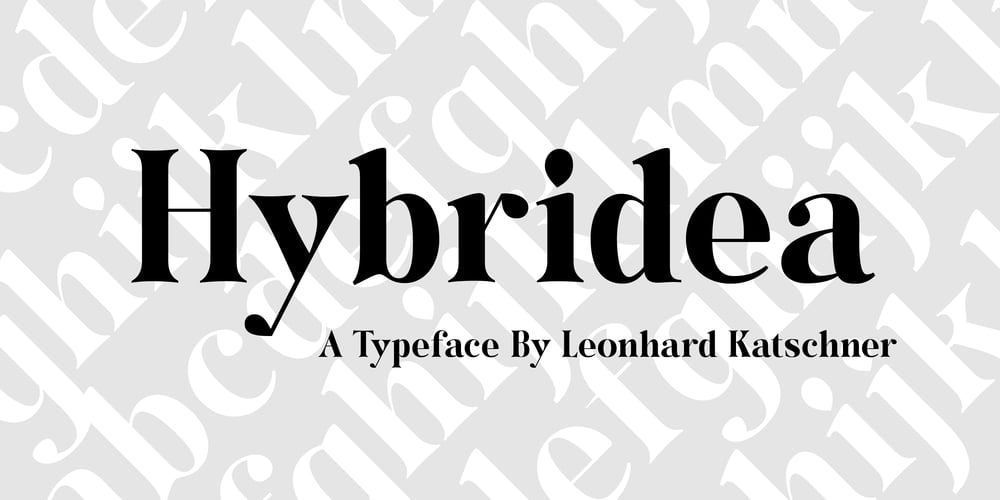
Hybridea Font Family was designed by Leonhard Katschner and published by Brave Type. Hybridea contains 7 styles and family package options. Hybridea is a serif font family which I designed to look strong but elegant.You can use it as a display font or for longer texts. The name comes from the combination of style elements like curved serifs & big drops. I included all glyphs from all latin and even other languages so you can type them.I am looking forward to see your products using Hybridea.